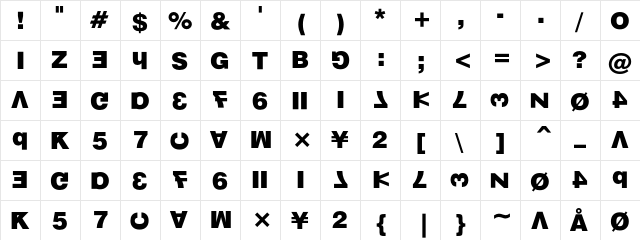
Knulla Regular
Design Context for Knulla Typeface
Knulla is a composed and adaptable typeface that performs quietly and consistently across a wide range of design contexts.